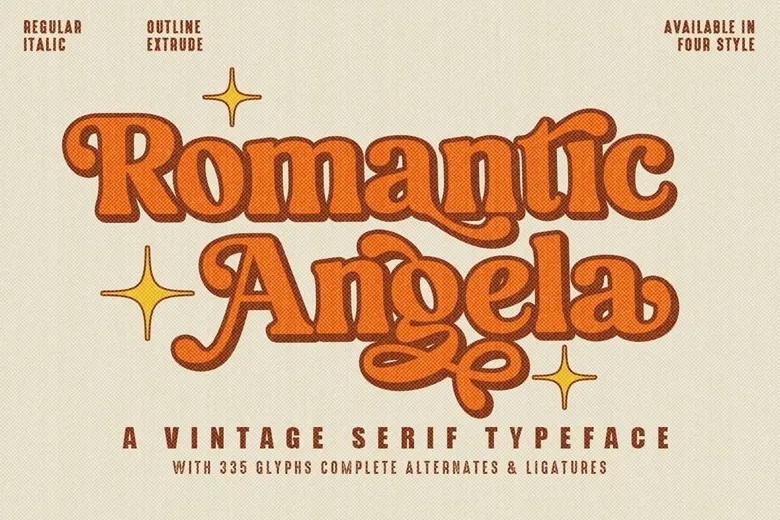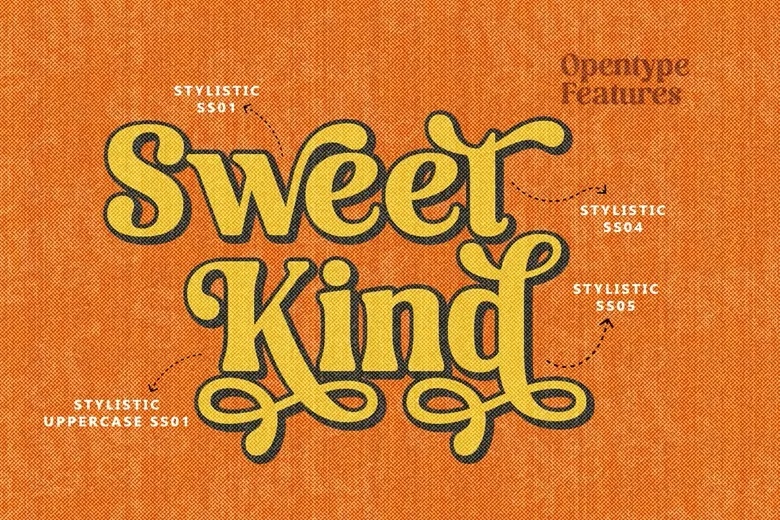
Romantic Angela is a soft, heavy serif straight from a 1970s record shop. Mega Type gave it ball terminals, swelling curves and a g with a loop that drops well below the line. The cover stacks “Romantic Angela” in orange over a darker extrude layer, with little gold sparkles around it, on a cream linen texture.
The opentype preview is the one to study. “Sweet Kind” shows stylistic sets SS01, SS04 and SS05, which swap in curlier versions of letters such as S, K and d. There are 335 glyphs in total, with alternates and ligatures, and the family includes Regular, Italic, Outline and Extrude styles so you can stack layers in different colours.
Best uses for Romantic Angela
- Retro book and album covers
- Café and bakery signs
- Greeting cards
- Beauty and fashion social posts
- Vintage style packaging
Romantic Angela needs a plain partner. Work Sans keeps body text clean. Oswald works for tall caps captions. For a lighter serif, try Lora.
Romantic Angela Serif Font